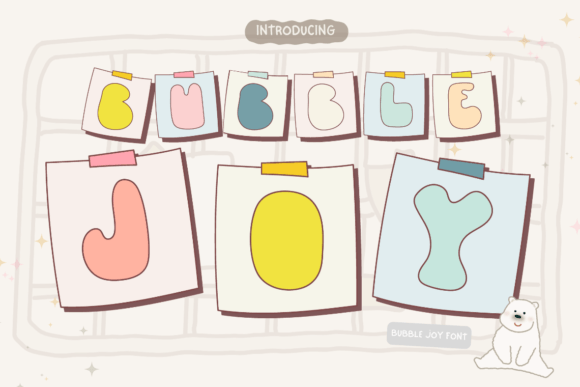
Get Ready to Pop with Joy: Discover the Magic of Bubble Joy Font
Have you ever been in the midst of a creative project, staring at a blank page, and suddenly, a burst of inspiration hits you? The ideas start flowing, and your imagination runs wild. For designers, moments like these are what make the job truly rewarding. But what if you had a tool that could amplify this feeling of excitement and joy, making every project a celebration of creativity and happiness?
Enter Bubble Joy Font, a delightful handwritten typeface that embodies the playful essence of Kawaii themes. This whimsical font is designed to bring a touch of fun and charm to your creative projects, from school notes to posters, packaging, and DIY projects. With its unique bubble-like alphabet graphics, Bubble Joy Font is a valuable asset for designers looking to add an extra layer of personality and whimsy to their work.
Bubble Joy Font Key Features
- Character Set: This font includes a comprehensive set of characters, including uppercase and lowercase letters, numbers, punctuation marks, and special characters.
- Unique Characteristics: The Bubble Joy Font features a playful, whimsical design with rounded shapes and a soft, bubbly texture, making it perfect for creating eye-catching and engaging designs.
- Language Support: The Bubble Joy Font supports multiple languages, including English, Spanish, French, German, Italian, and many more, making it a versatile choice for global designs.
- Font Weight: This font is available in a single weight, which is ideal for creating a consistent and cohesive visual identity.
Bubble Joy Font Review
Overall, I’d say the Bubble Joy Font is a fun and playful addition to any design project. ✨ The rounded edges and bubbly texture give it a carefree feel that’s perfect for children’s books, magazines, or social media graphics. It’s also relatively easy to read, even at smaller font sizes.
- Works well for: children’s content, playful headings, and informal designs
- Has a nice balance of whimsy and legibility
- Available in a range of font sizes and weights
However, there are some limitations to consider. ⚠️ The font can feel a bit too ‘cute’ for more serious or formal designs, and the texture may not be suitable for high-resolution images or professional-looking materials. Additionally, the font may not be as versatile as some other sans-serif options.
Overall, I’d give the Bubble Joy Font 3.5 out of 5 stars. It’s a solid choice for playful designs, but it may not be the best fit for every project. With a bit of restraint and careful usage, it can add a lot of personality to your designs.
Tips for Getting the Most Out of the Bubble Joy Font
For the best results, use the Bubble Joy Font in conjunction with colorful backgrounds and playful graphics. Experiment with different font sizes and styles to create a visually appealing design.
The Bubble Joy Font is ideal for:
– Party invitations
– Children’s educational materials
– Whimsical branding and marketing materials
Alternative Fonts to Bubble Joy Font
The Great Vibes font is a modern, cursive font that is perfect for adding a playful touch to designs. It’s ideal for use in titles, headings, and quotes, and is particularly well-suited for creative and artistic projects. Compared to Bubble Joy Font, Great Vibes has a more fluid and dynamic feel, making it a great choice for designers looking for a unique and eye-catching font.
Pacifico is a beautiful, elegant font that is perfect for use in headings, titles, and body text. It has a relaxed, beachy feel that makes it ideal for use in projects related to travel, relaxation, and wellness. Compared to Bubble Joy Font, Pacifico has a more refined and sophisticated look, making it a great choice for designers looking for a font that exudes calmness and serenity.
Q: What is the recommended font size and line height for the Bubble Joy Font?
For optimal readability, we recommend using the Bubble Joy Font at a minimum font size of 14px and a line height of 1.5 to 2 times the font size. This will ensure that the text is clear and easy to read, even at smaller sizes.